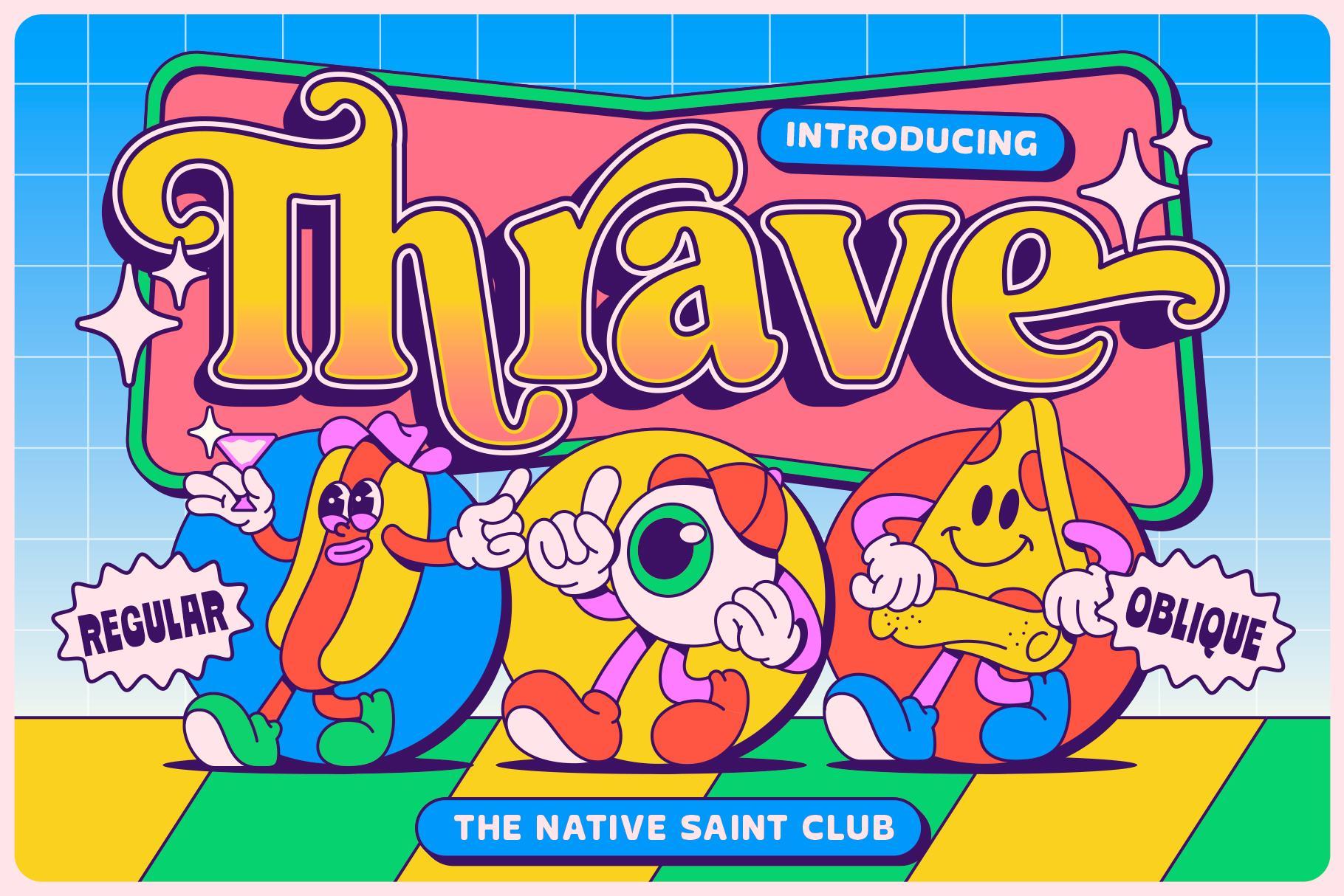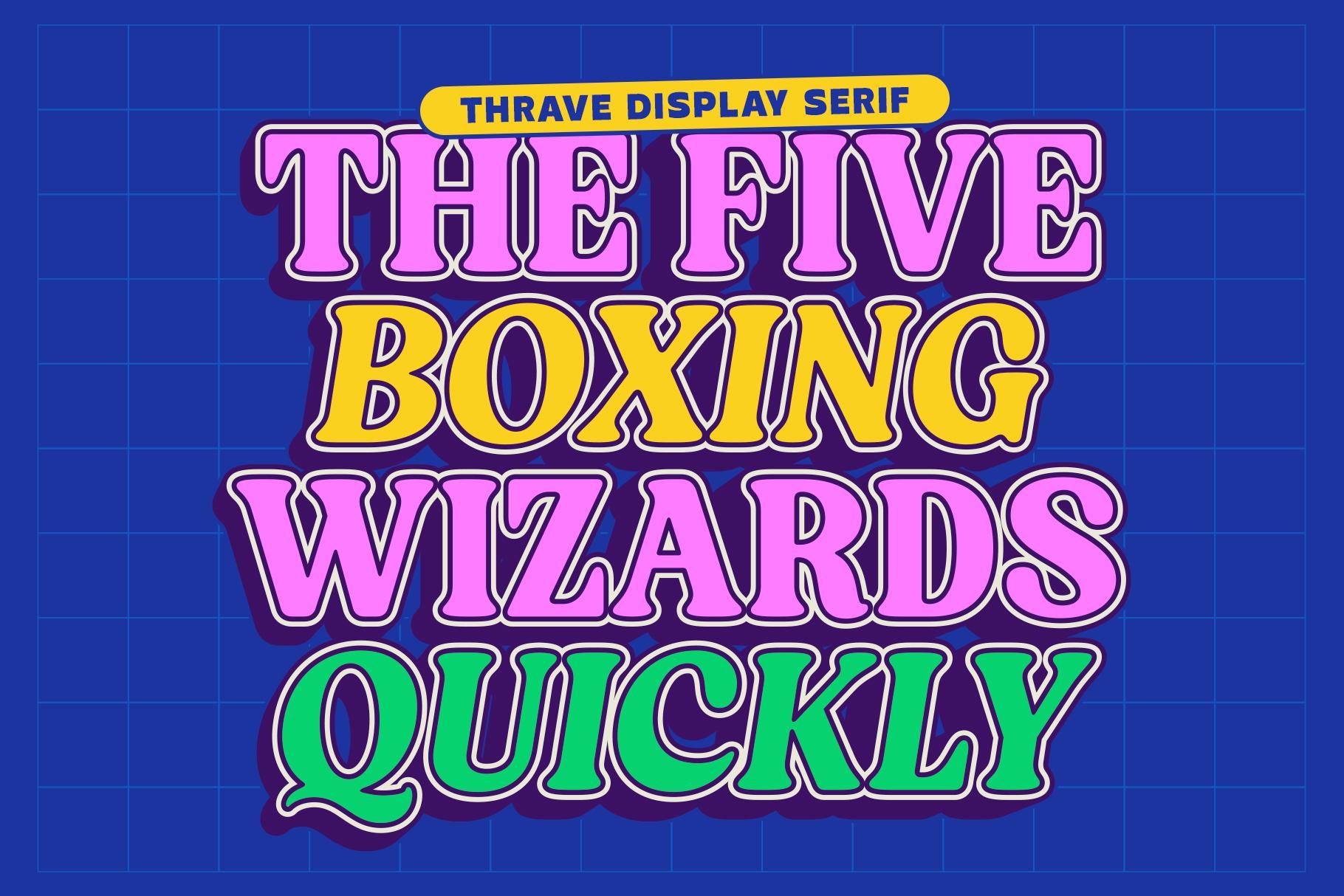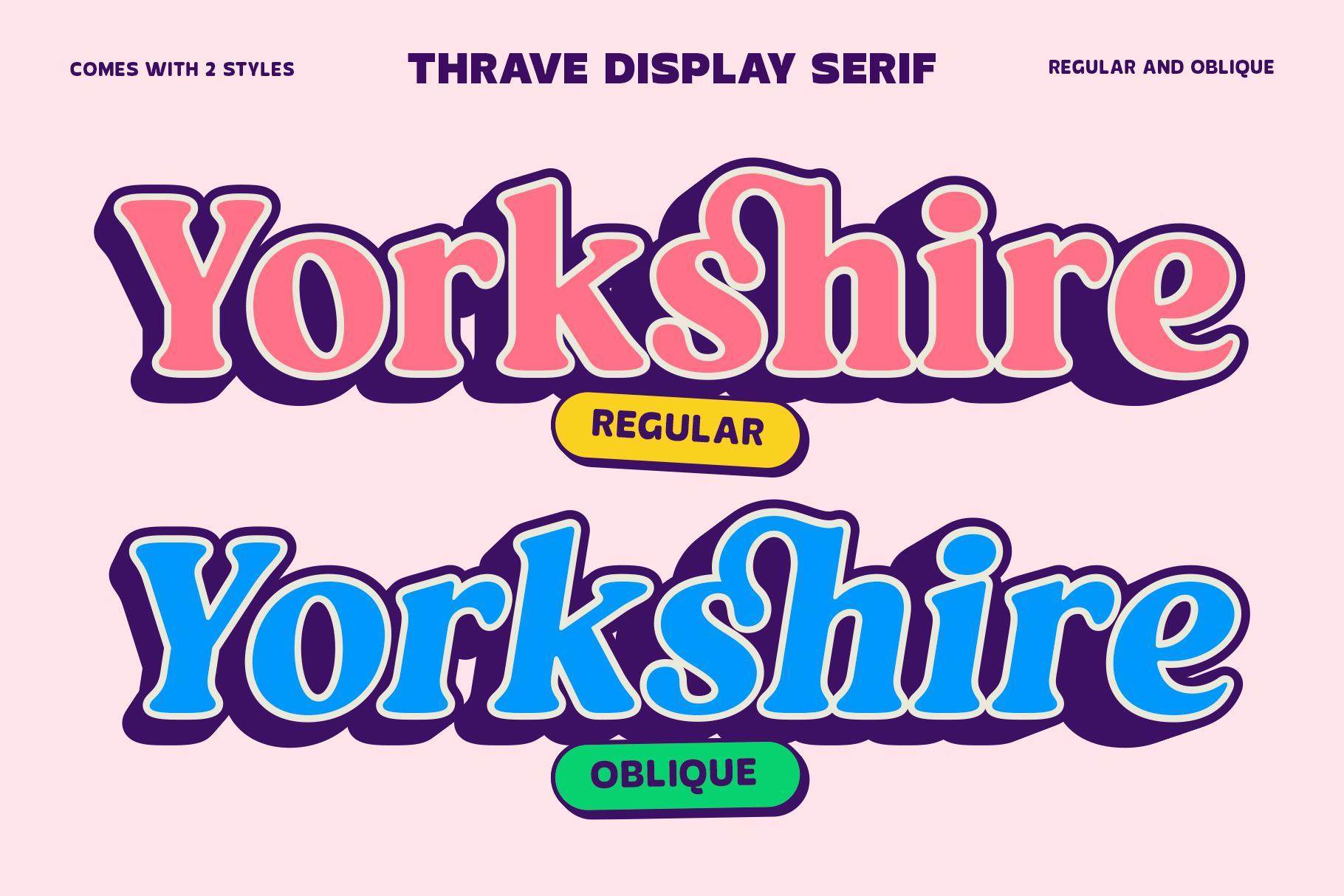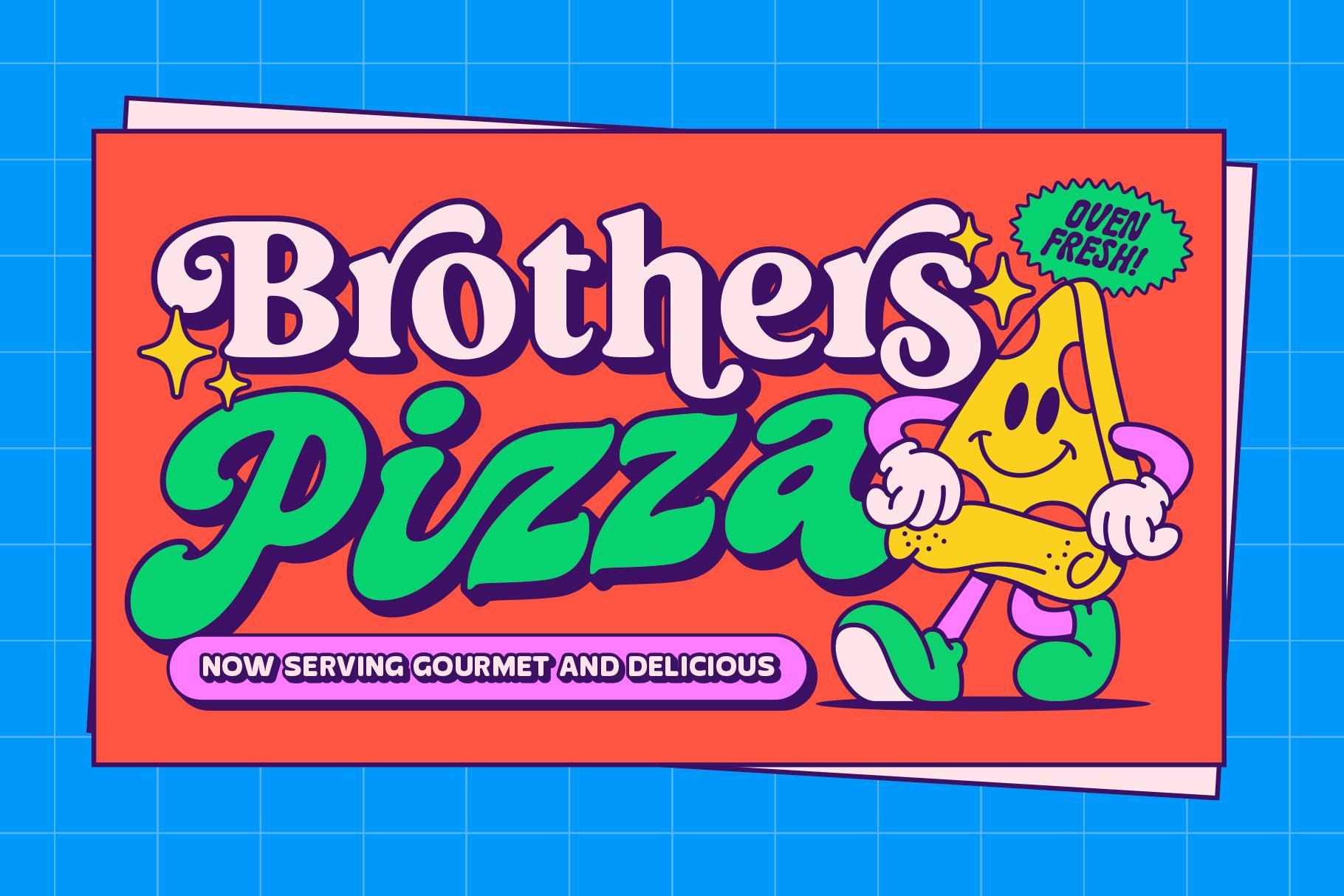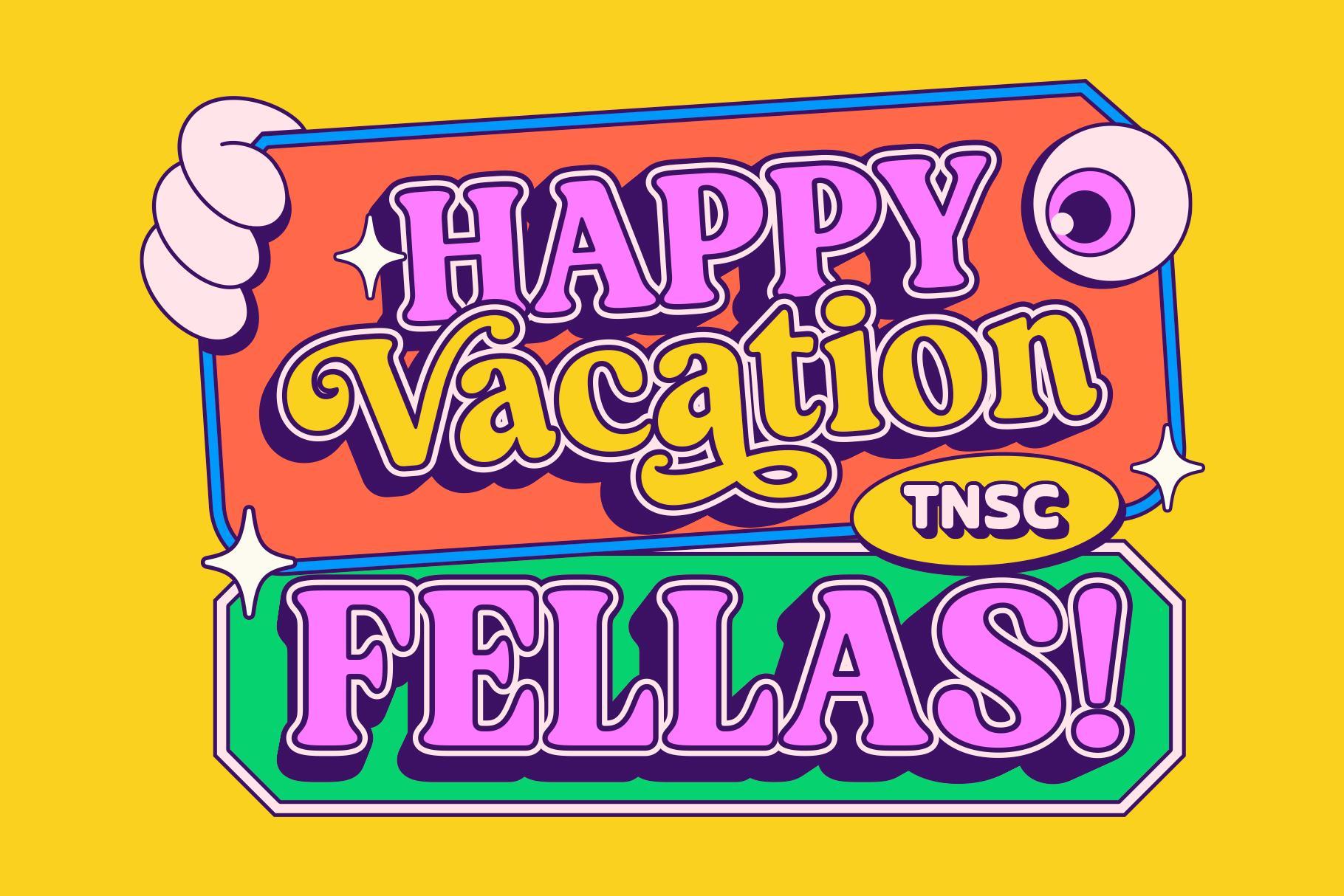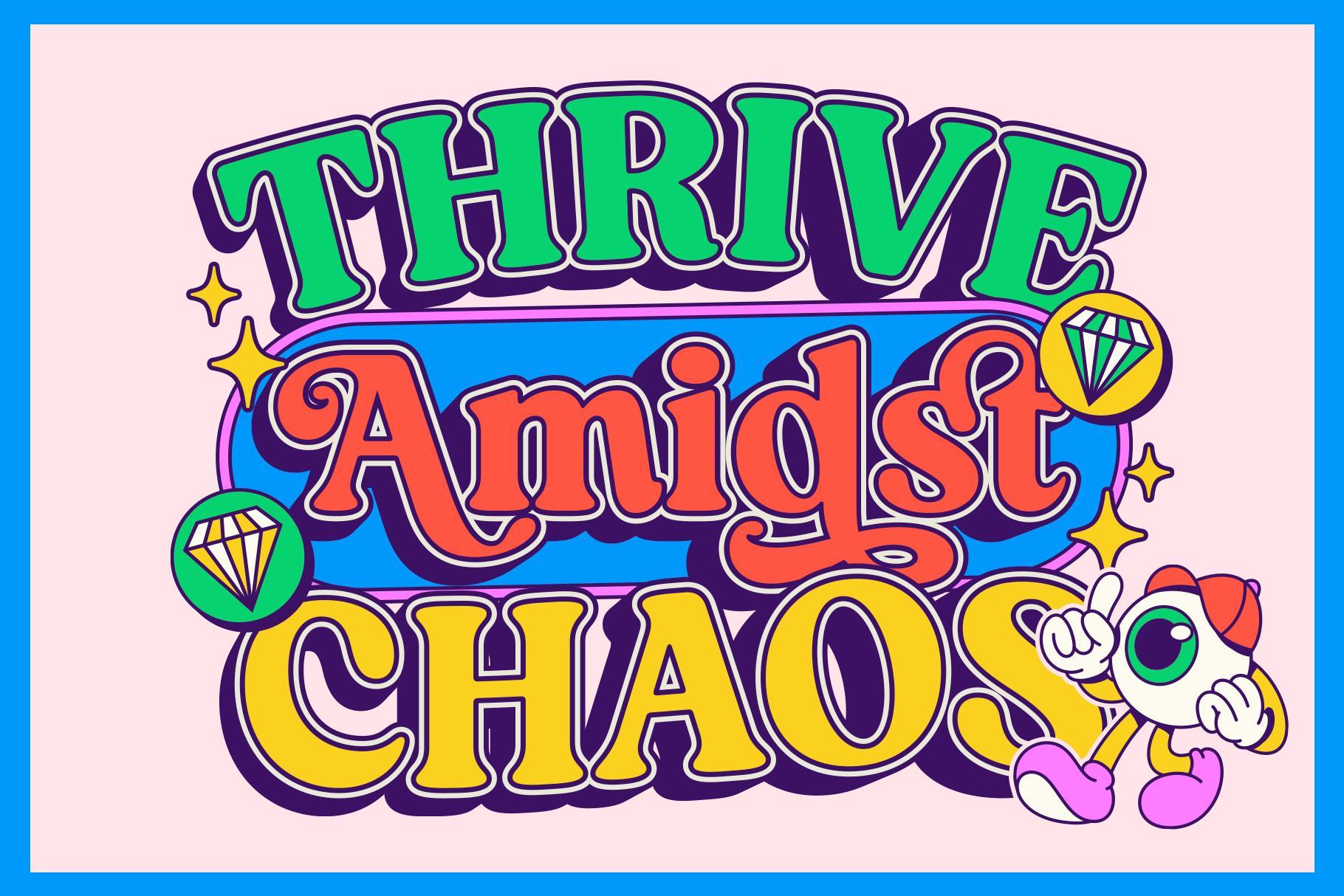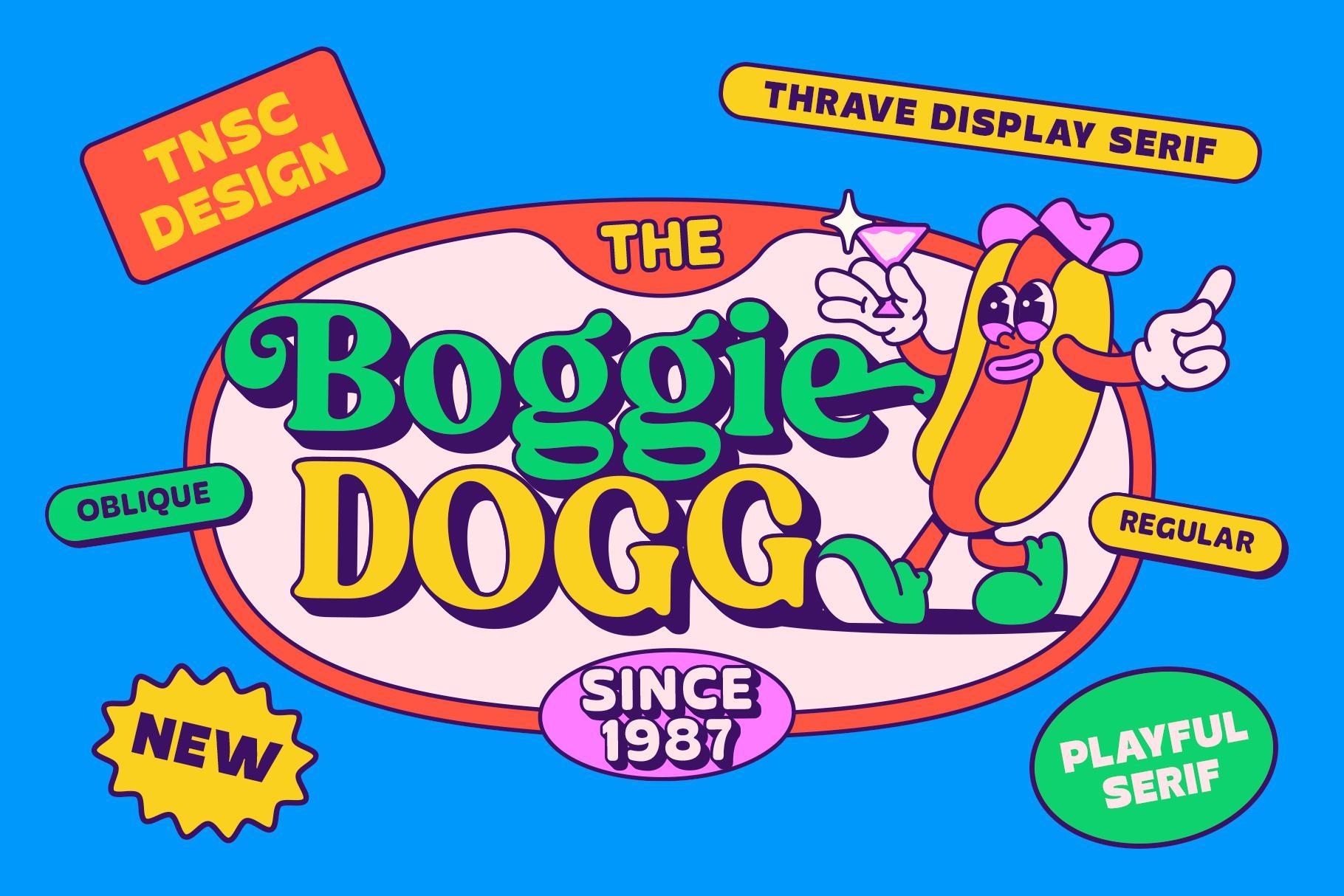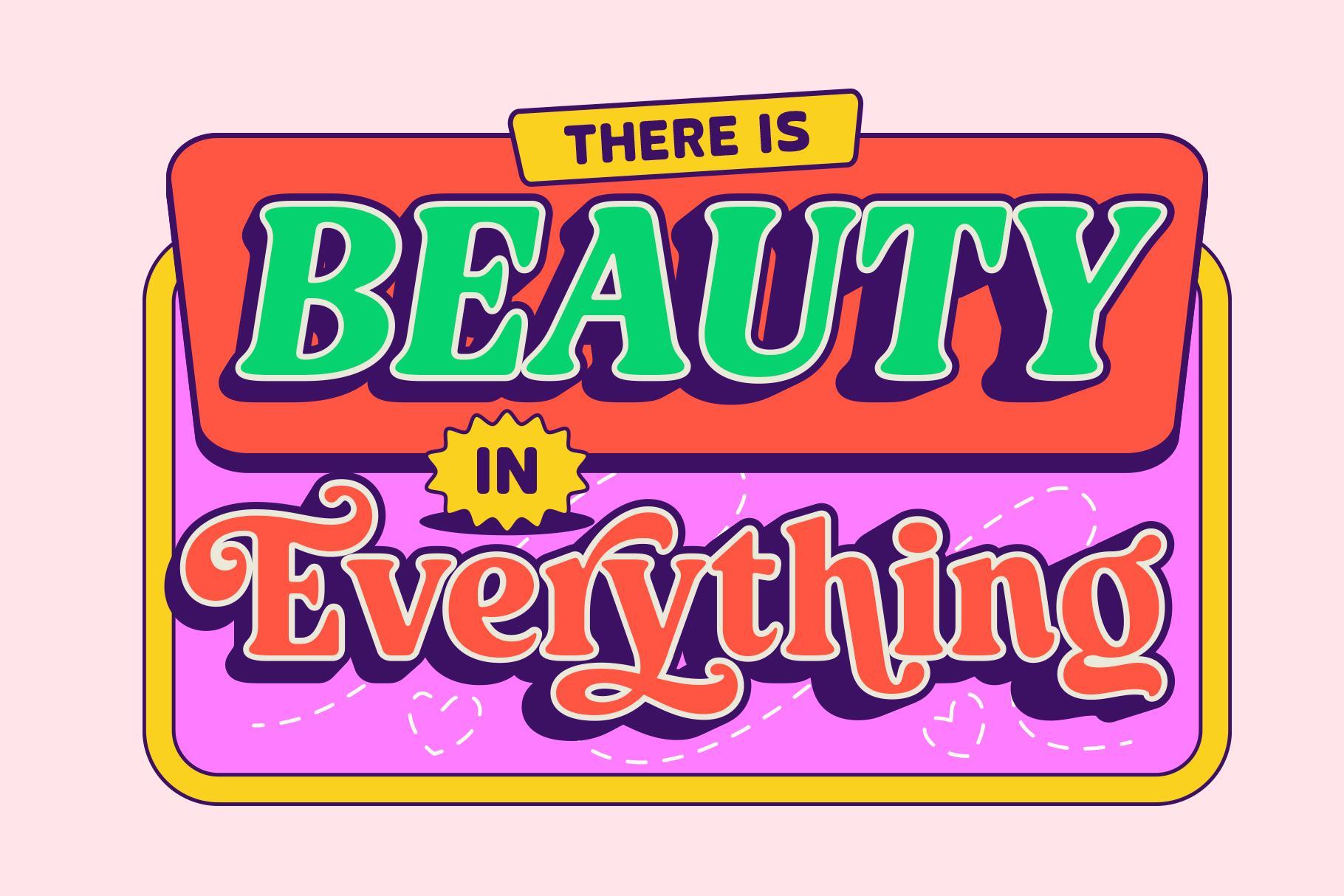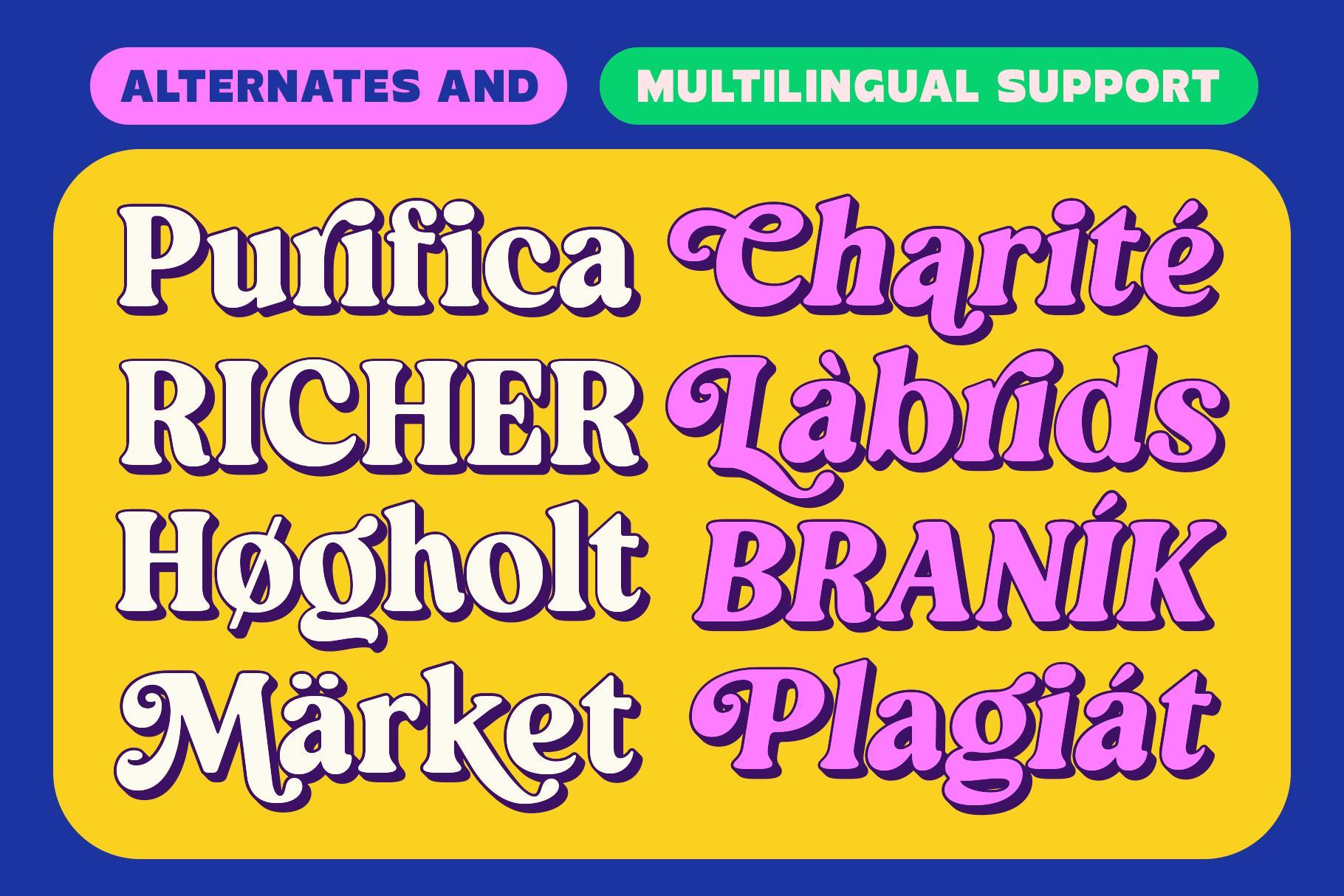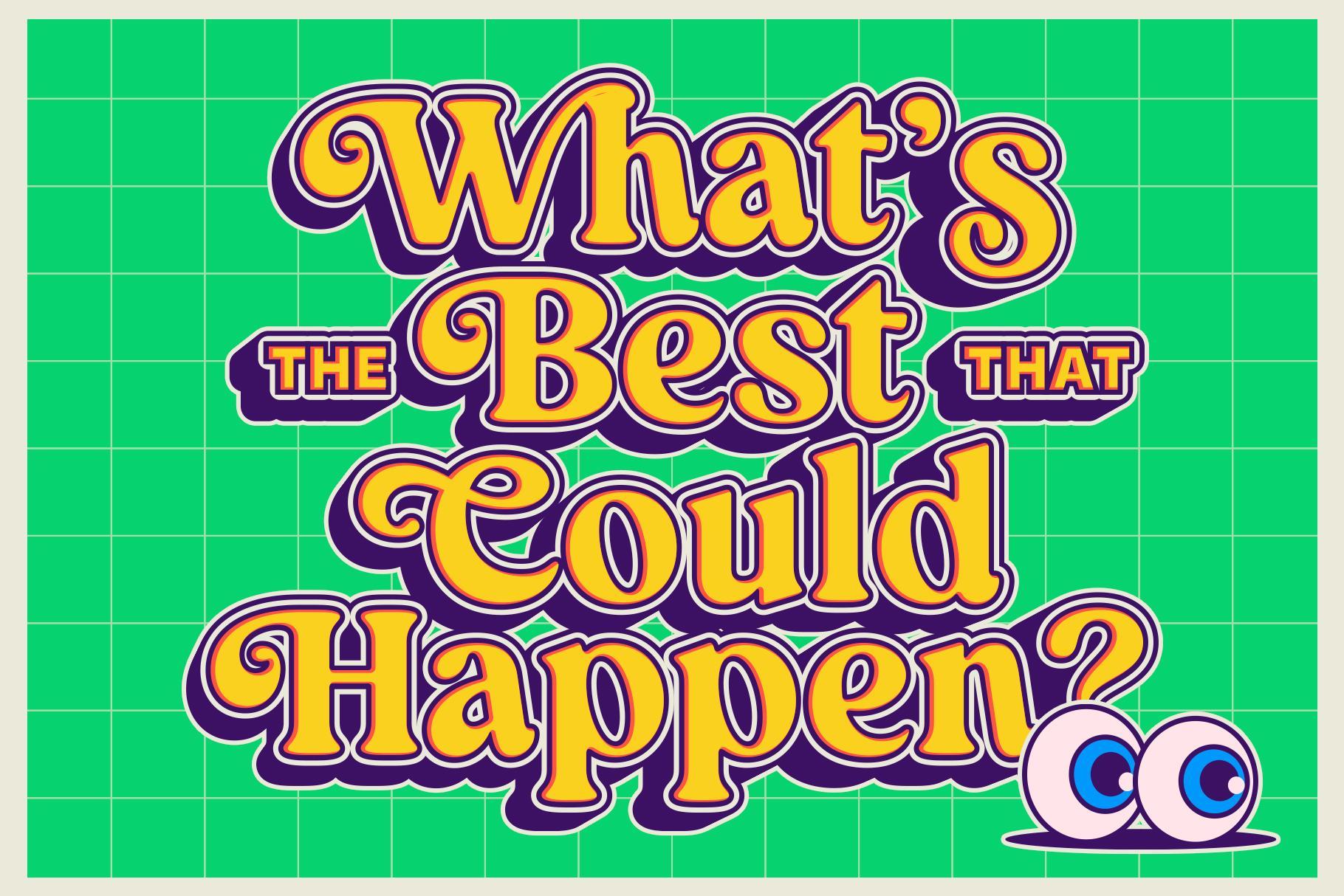
TNSC Thrave - Display Pop Serif
Oblique
Thrave - Features a serif font in two styles, Regular and Oblique , with alternative glyphs you can explore for your various design projects. This font has a pop, playful, and fun feel. Suitable for any project such as: logos, branding projects, product packaging, quotes, posters and other beautiful projects!